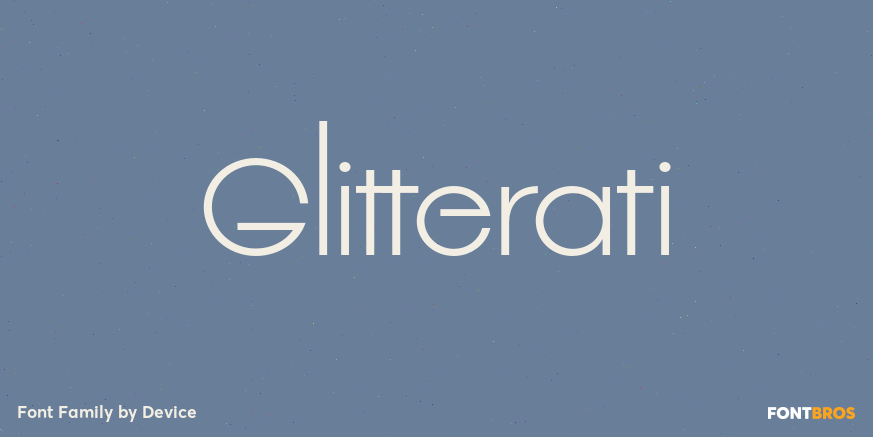
Glitterati is Disko 2005. This font contains alternative versions that enable customisation of headlines and are intended to be freely mixed in one setting.